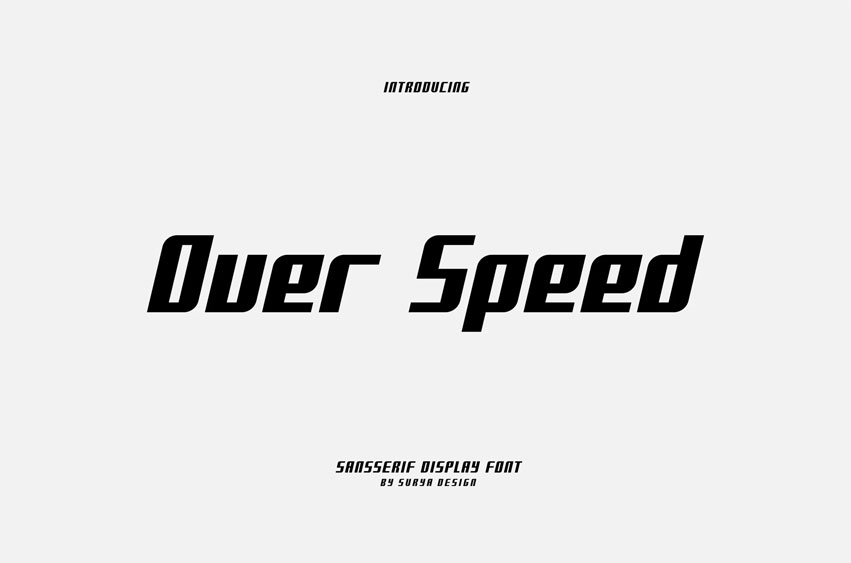
Over Speed Font
Over Speed Font Modern Font is a bold and authentic display font. The font is suitable for any branding project, like logos, esport, and many more. outstanding in a wide range of contexts.